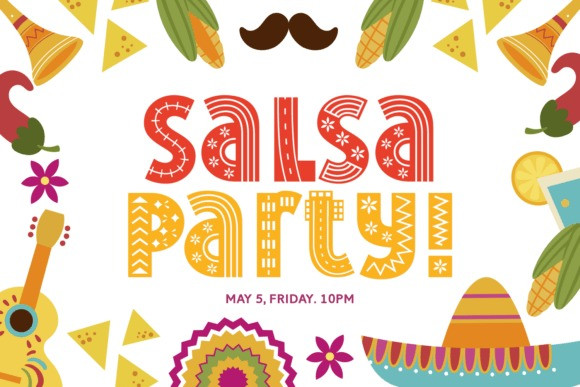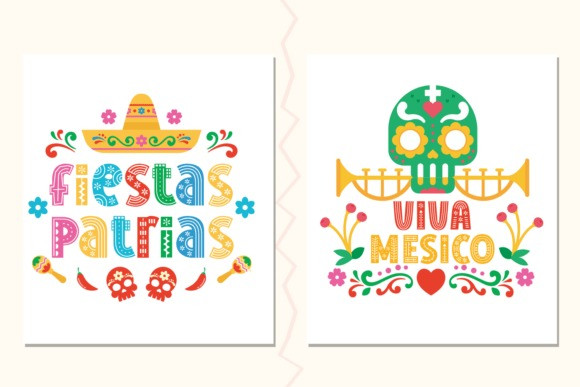
Mexican Moon Font
Mexican Moon Font is a cute and colorful decorative font. It embodies playfulness and authenticity and is the perfect choice for any festive activity or school project. Add this chunky lettered font to your designs and notice how it makes them come alive!